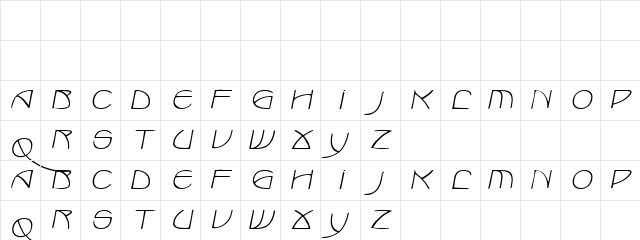
JacksonCaps Oblique
Design Context for JacksonCaps
JacksonCaps is a composed and adaptable typeface that performs quietly and consistently across a wide range of design contexts. The slanted form adds forward momentum and visual energy.
Pro Tip: Use JacksonCaps for emphasis, pull quotes, and subheadings where its slanted energy can add rhythm to the layout.